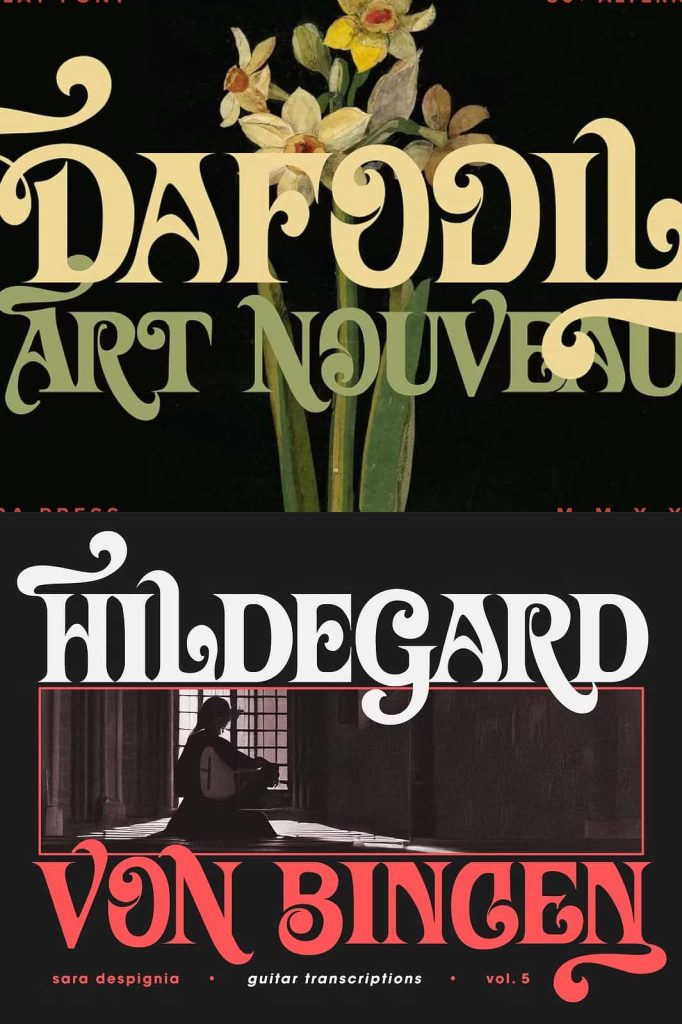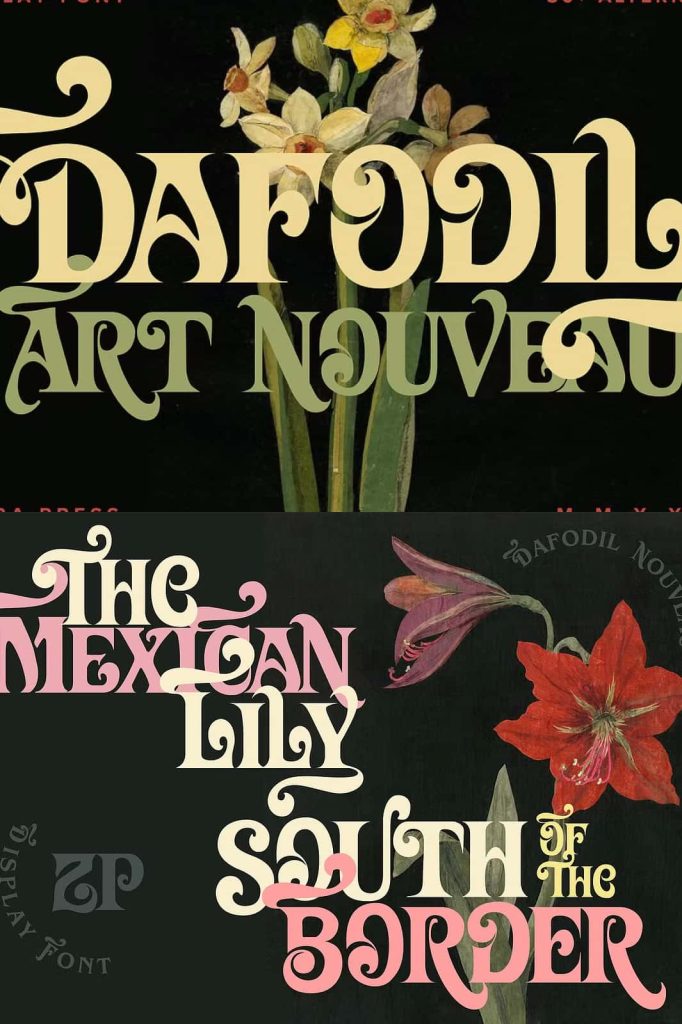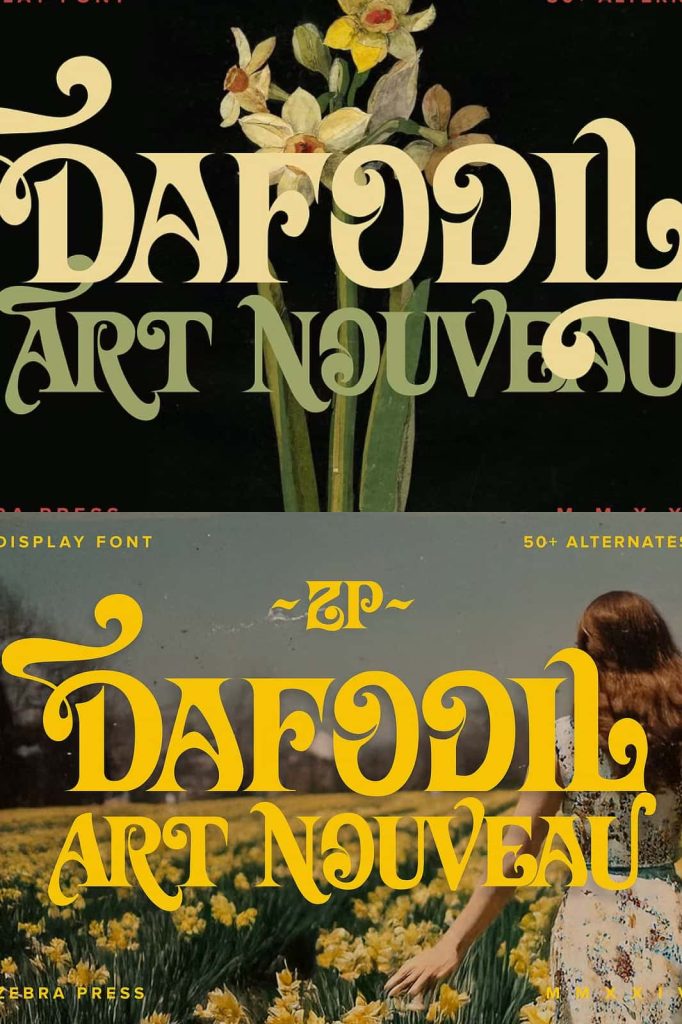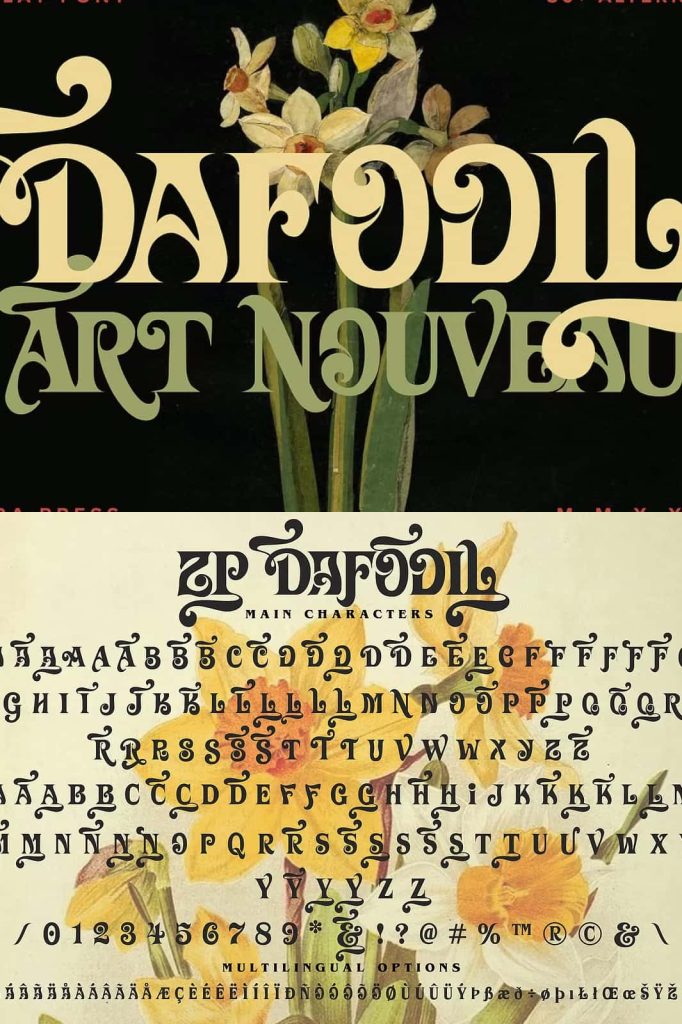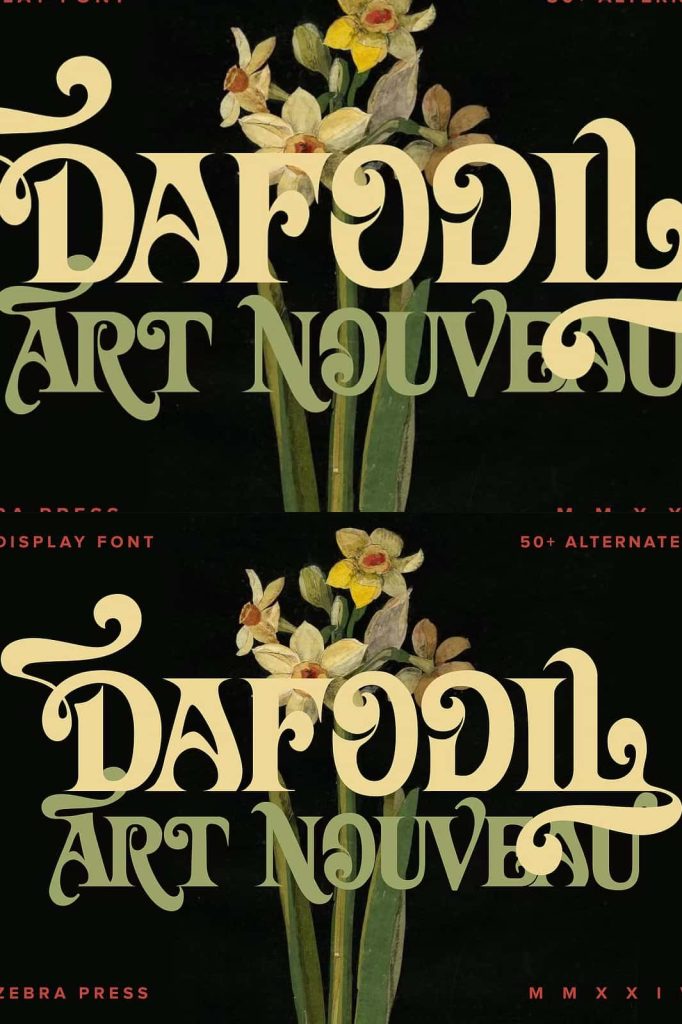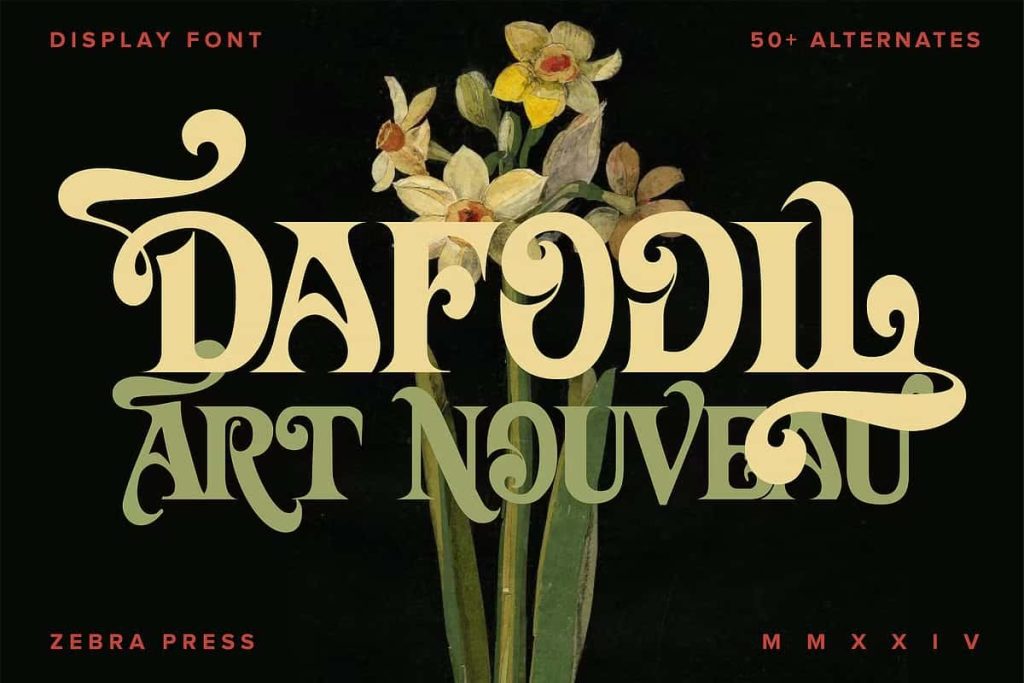
ZP DAFODIL – Art Nouveau FontleastedDecember 6, 2024Fonts ZP DAFODIL is an art nouveau display font with many alternate characters & swashes. Hand-drawn with edges sharpened for legibility. Download